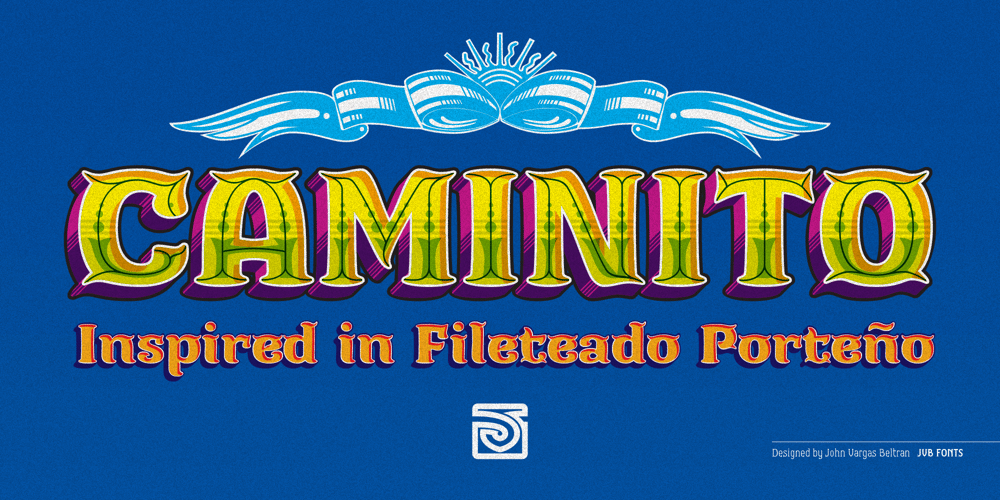
Caminito Font Family was designed by John Vargas Beltrán and published by JVB Fonts. Caminito contains 11 styles and family package options. This fontface is inspired on Argentinean classic and traditional art craft named as Fileteado Porteño. Caminito is available in 10 layered styles for compose with multi combinations and a extra of ornaments. Highly recommended to be used for colorized titles and display texts. Fileteado Porteño is a type of artistic drawing, with stylized lines and flowered, climbing plants, typically used in Buenos Aires, Argentina. It is used to adorn all kind of beloved objects: signs, taxis, lorries and even the old colectivos, Buenos Aires’s buses. Filetes (the lines in fileteado style) are usually full of colored ornaments and symmetries completed with poetic phrases, sayings and aphorisms, both humorous or roguish, emotional or philosophical. They have been part of the culture of the Porteños (inhabitants of Buenos Aires) since the beginnings of the 20th century. One of the most highlighted and recognized artists nowadays is Alfredo Genovese, who does a great job of teaching and claim this art and craft. The name Caminito reminds the emblematic and iconic Buenos Aires neighborhood immortalized by Carlos Gardel in music, in the tango.